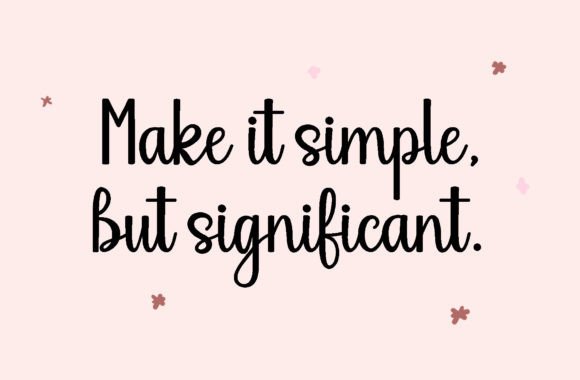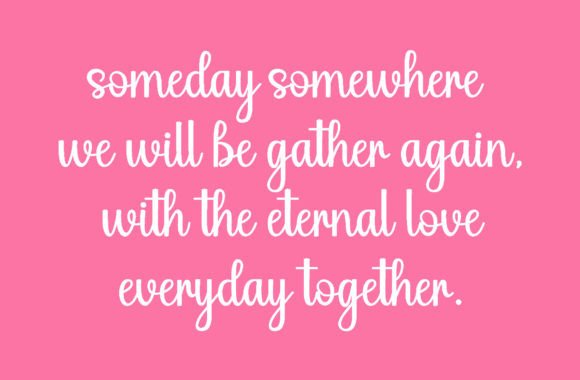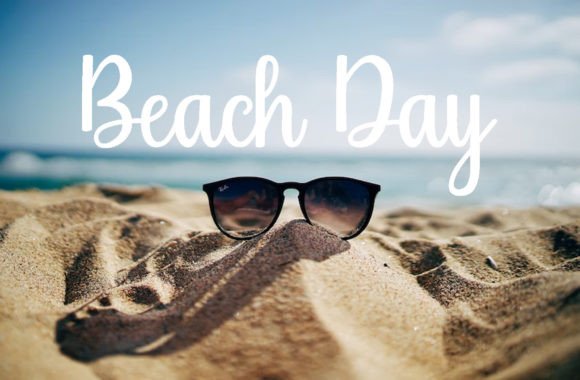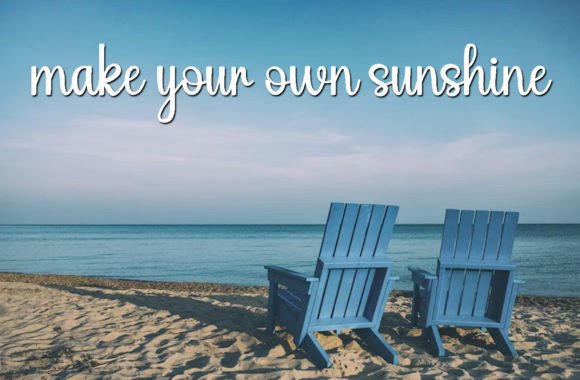
Introducing Glad Font: The Sweet and Friendly Handwritten Font for Your Creative Projects
Are you tired of using the same old fonts for your designs? Look no further than Glad Font, a sweet and friendly handwritten font that’s perfect for adding a personal touch to your creative projects. With its natural and unique style, Glad Font is incredibly versatile and can be used for a wide range of designs, from crafting and scrapbooking to branding and advertising.
The Characteristics of Glad Font
Glad Font is a handwritten font that’s designed to look like it was written with love and care. Its natural, flowing style makes it perfect for creating a sense of warmth and personality in your designs. The font features:
- Unique and quirky letterforms: Each letter in Glad Font has its own unique character, making it perfect for adding a touch of whimsy to your designs.
- Natural and flowing connections: The font features natural connections between letters, giving it a sense of movement and fluidity.
- High legibility: Despite its handwritten nature, Glad Font is highly legible, making it perfect for use in a variety of contexts, from body text to headings.
The Benefits of Using Glad Font
So why choose Glad Font for your next design project? Here are just a few benefits of using this sweet and friendly font:
- Versatility: Glad Font can be used for a wide range of designs, from crafting and scrapbooking to branding and advertising.
- Emotional connection: The font’s natural and friendly style helps to create an emotional connection with your audience, making your designs more relatable and engaging.
Ideas for Using Glad Font
So what can you create with Glad Font? Here are just a few ideas to get you started:
- Crafting and scrapbooking: Use Glad Font to add a personal touch to your scrapbook pages, craft projects, and DIY cards.
- Branding and advertising: Use Glad Font to create a friendly and approachable brand identity for your business or product.
- Wedding and event planning: Use Glad Font to create beautiful and personalized wedding invitations, stationery, and signage.
- Social media graphics: Use Glad Font to create eye-catching and engaging social media graphics, such as quote graphics and promotional images.
Tips for Getting the Most Out of Glad Font
Here are a few tips for getting the most out of Glad Font:
- Experiment with different colors: Glad Font looks great in a variety of colors, so don’t be afraid to experiment and find the perfect hue for your design.
- Mix and match with other fonts: Glad Font pairs well with a variety of other fonts, so try mixing and matching it with other fonts to create a unique and interesting look.
- Use it in combination with images: Glad Font looks great in combination with images, so try using it to add a personal touch to your photos and illustrations.
Overall, Glad Font is a sweet and friendly handwritten font that’s perfect for adding a personal touch to your creative projects. With its natural and unique style, it’s incredibly versatile and can be used for a wide range of designs. So why not give it a try and see what amazing creations you can come up with?